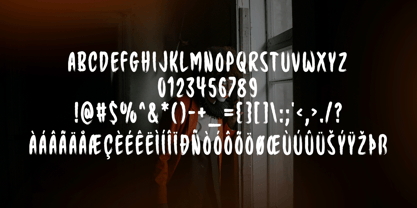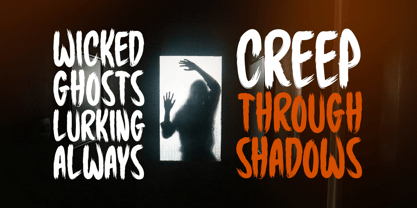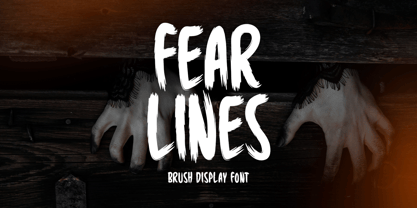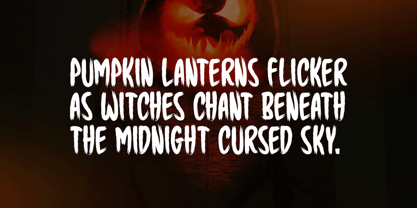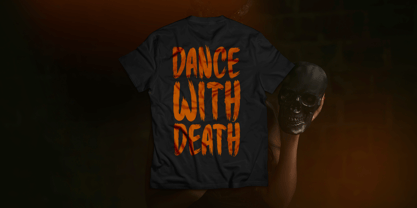
Fear Lines
by Seemly Fonts
The Fear Lines Font Family was designed by Md. Sohail Bhuiyan and published by Seemly Fonts. Fear Lines contains 1 styles. More about this family
Fear Lines is an expressive brush display font with a rugged, handcrafted feel that instantly commands the eye. Designed for versatility, it works beautifully in both print and digital formats—ranging from t-shirts and branding to event posters, web headers, album artwork, and creative packaging. With its bold, textured character, this typeface is the perfect choice for projects that call for a dramatic, artistic, and unforgettable visual statement.
Designers: Md. Sohail Bhuiyan
Foundry: Seemly Fonts